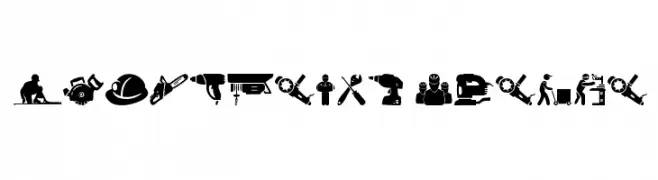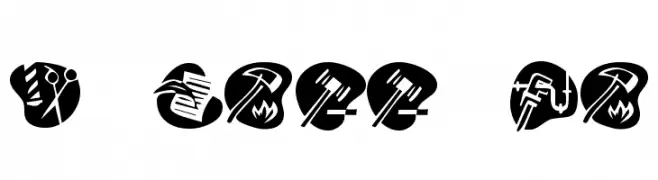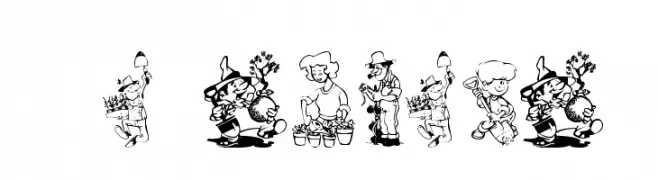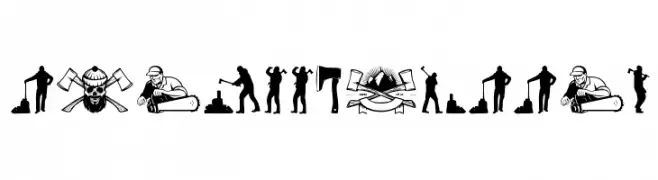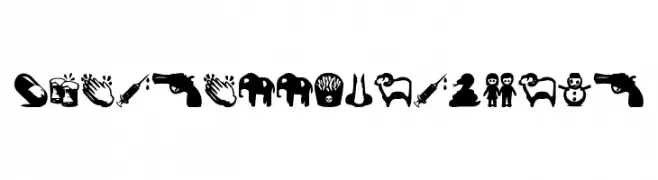
Industrial-themed pictogram icon set for workplace and construction visuals.
A pictographic icon set themed around cleaning and housekeeping.
Automotive and mechanic-themed icon dingbat font.
A pictogram font featuring lumberjack and woodcutting motifs.
Icon-based font featuring printing and production symbols.
Bold, playful emoticon and symbol icons with thick lines and high contrast.
A decorative icon font with detailed dental and dentist illustrations.
Hand-drawn school-themed dingbat illustrations.
Icon-based font illustrating different careers and professions.
Cartoon gardening-themed dingbat illustrations.